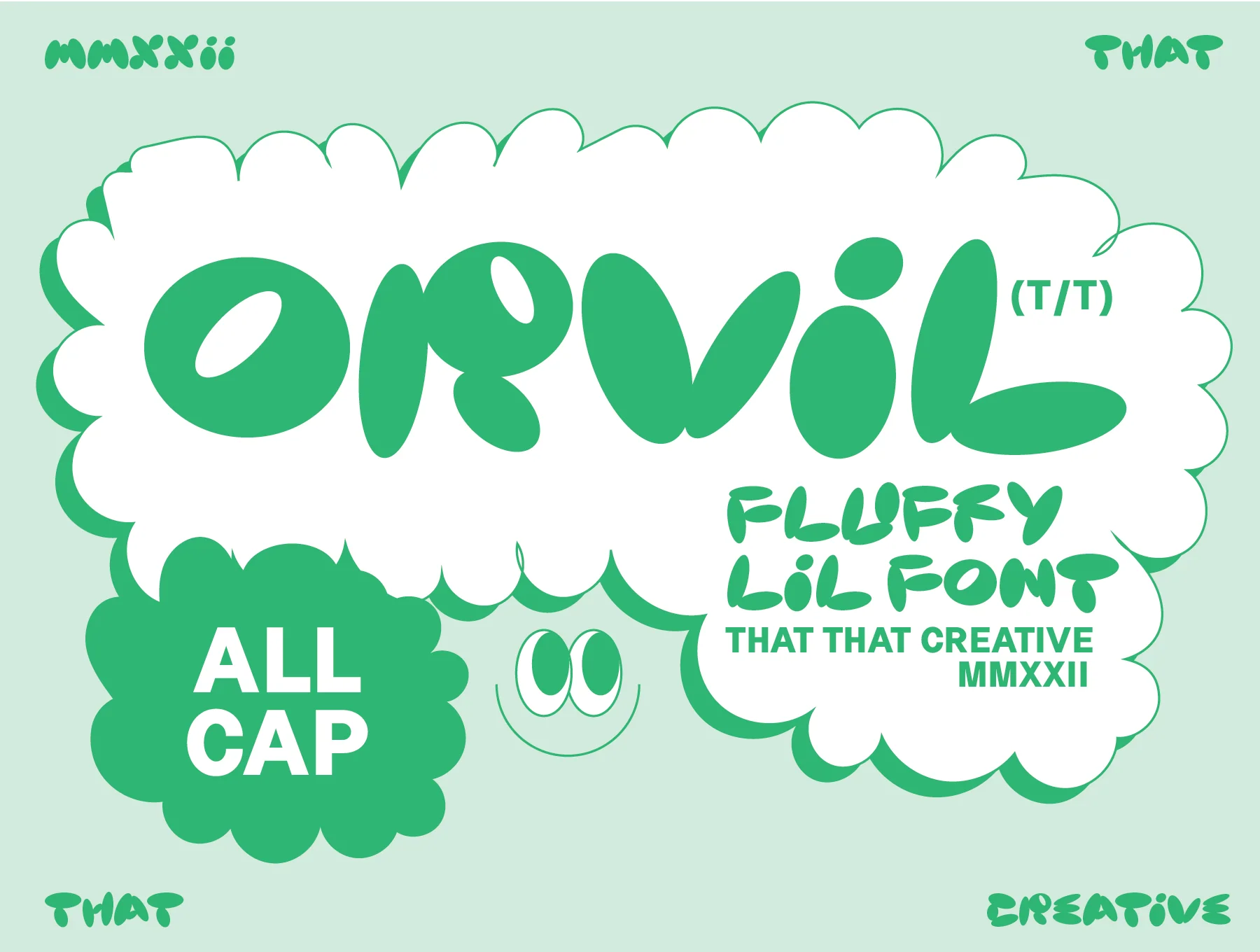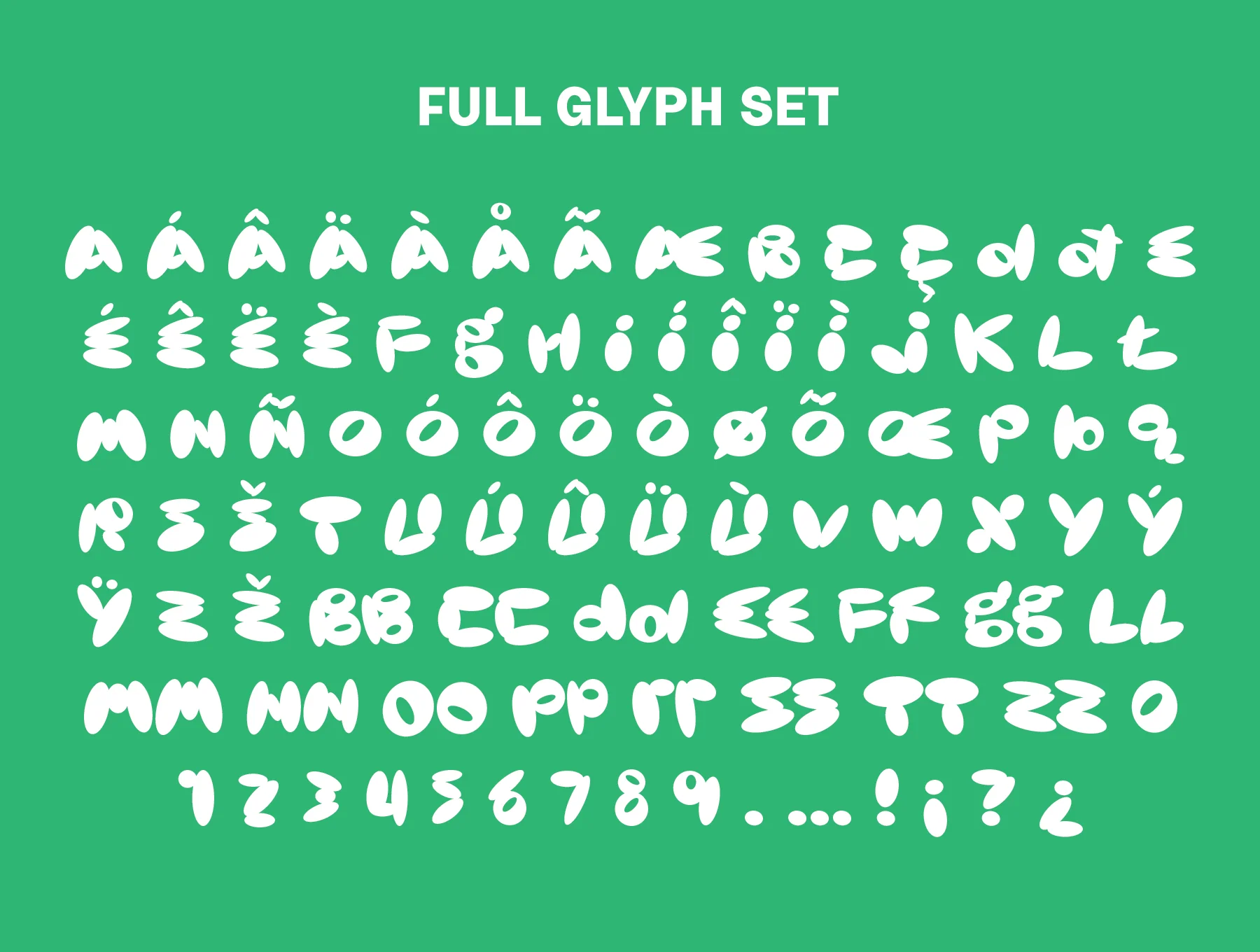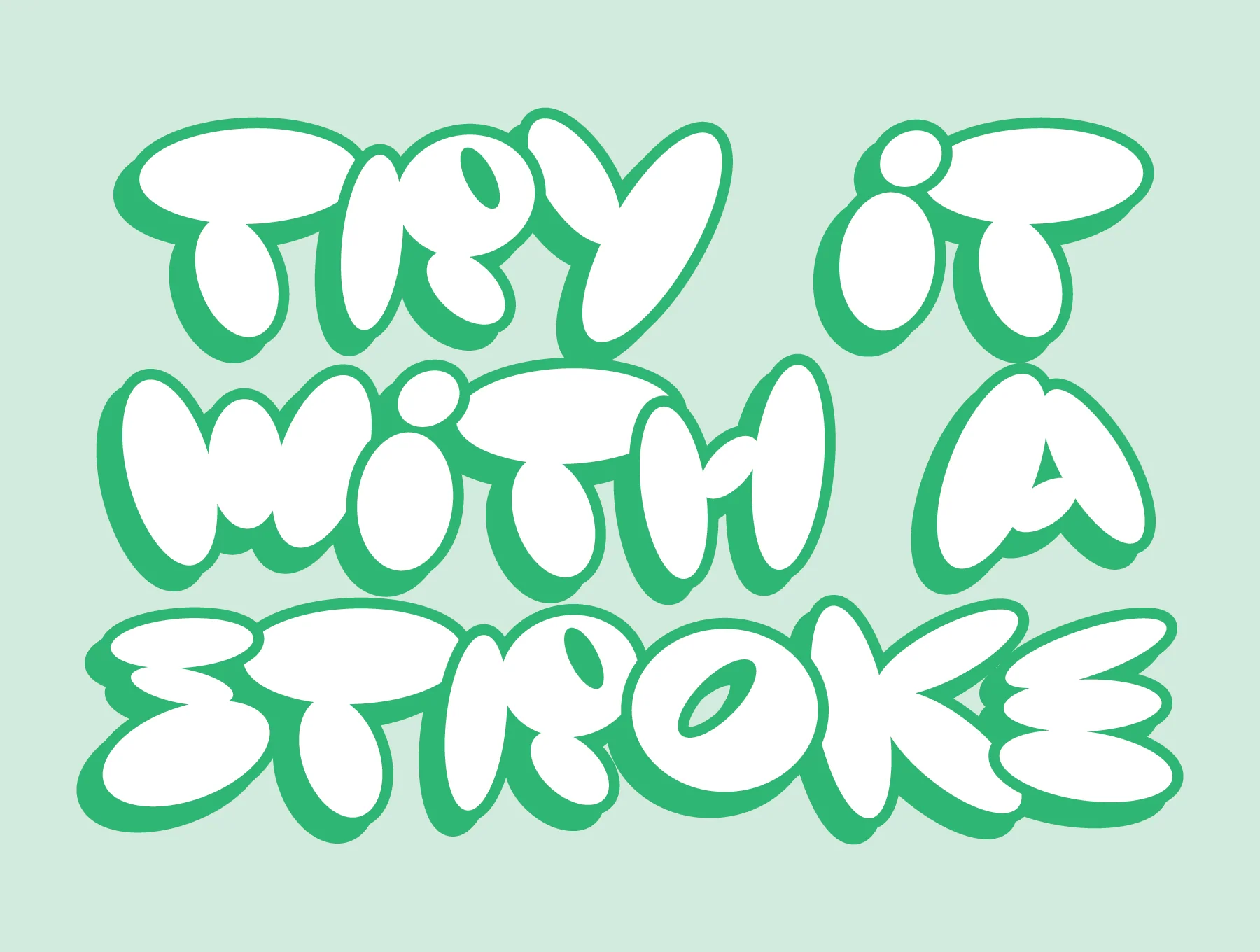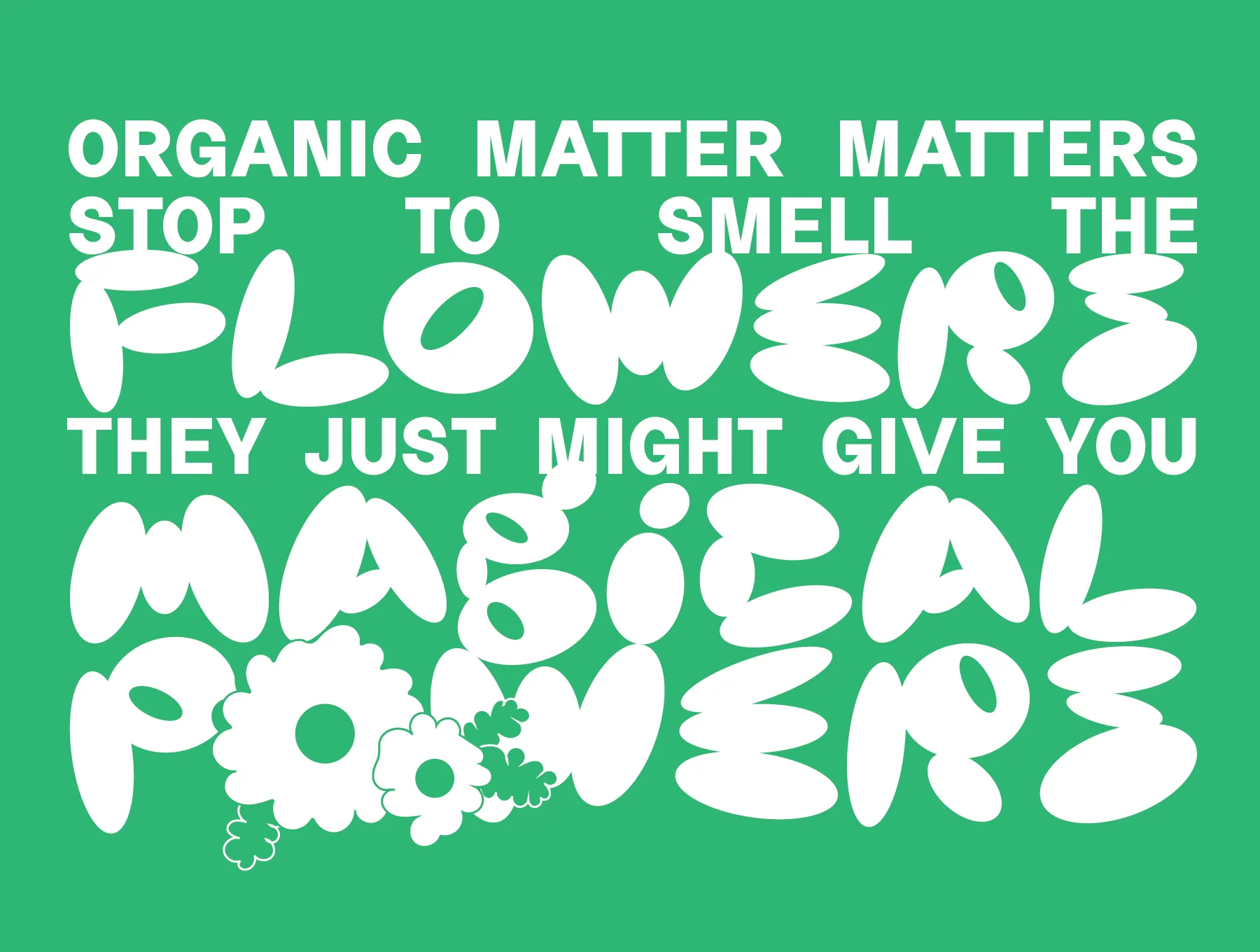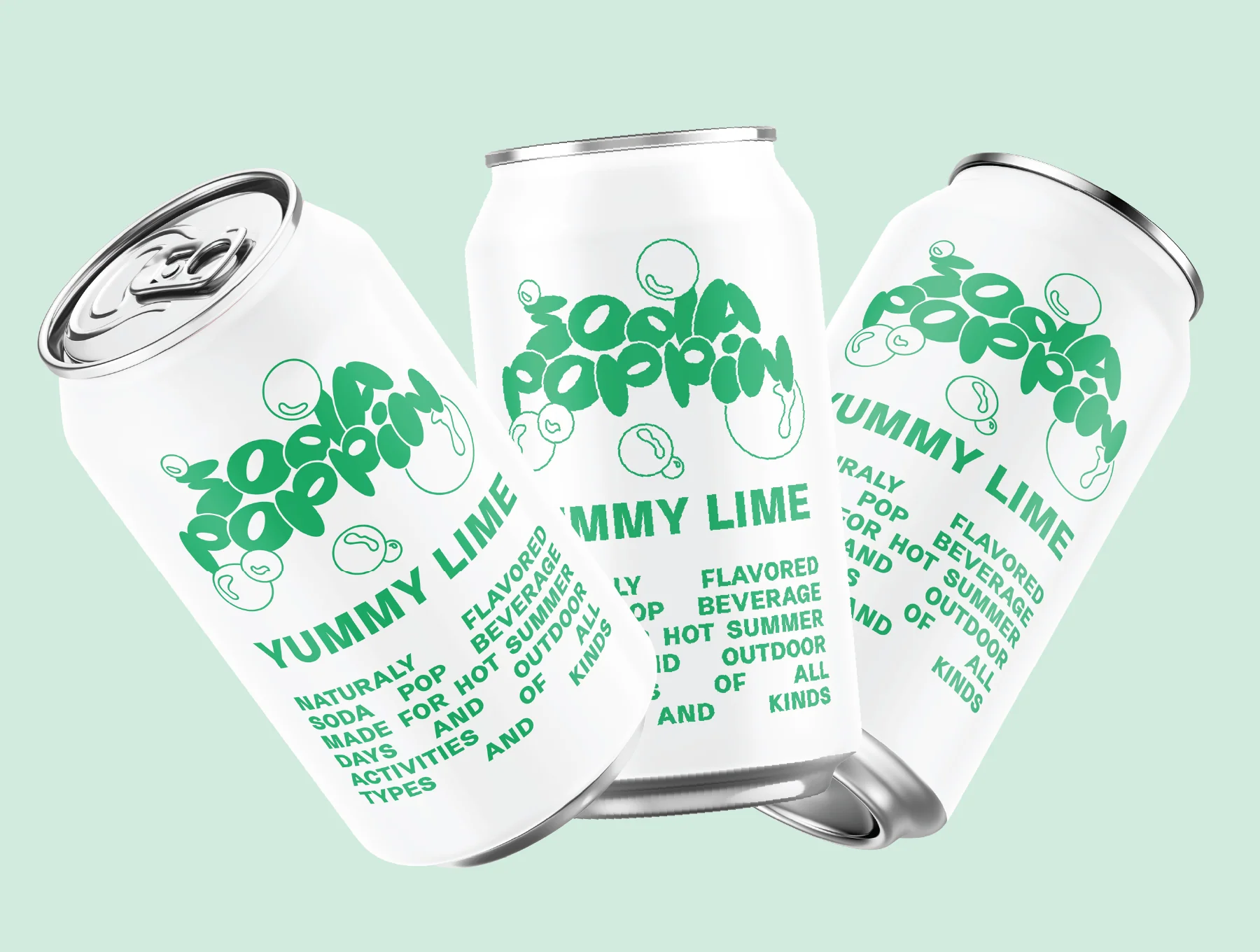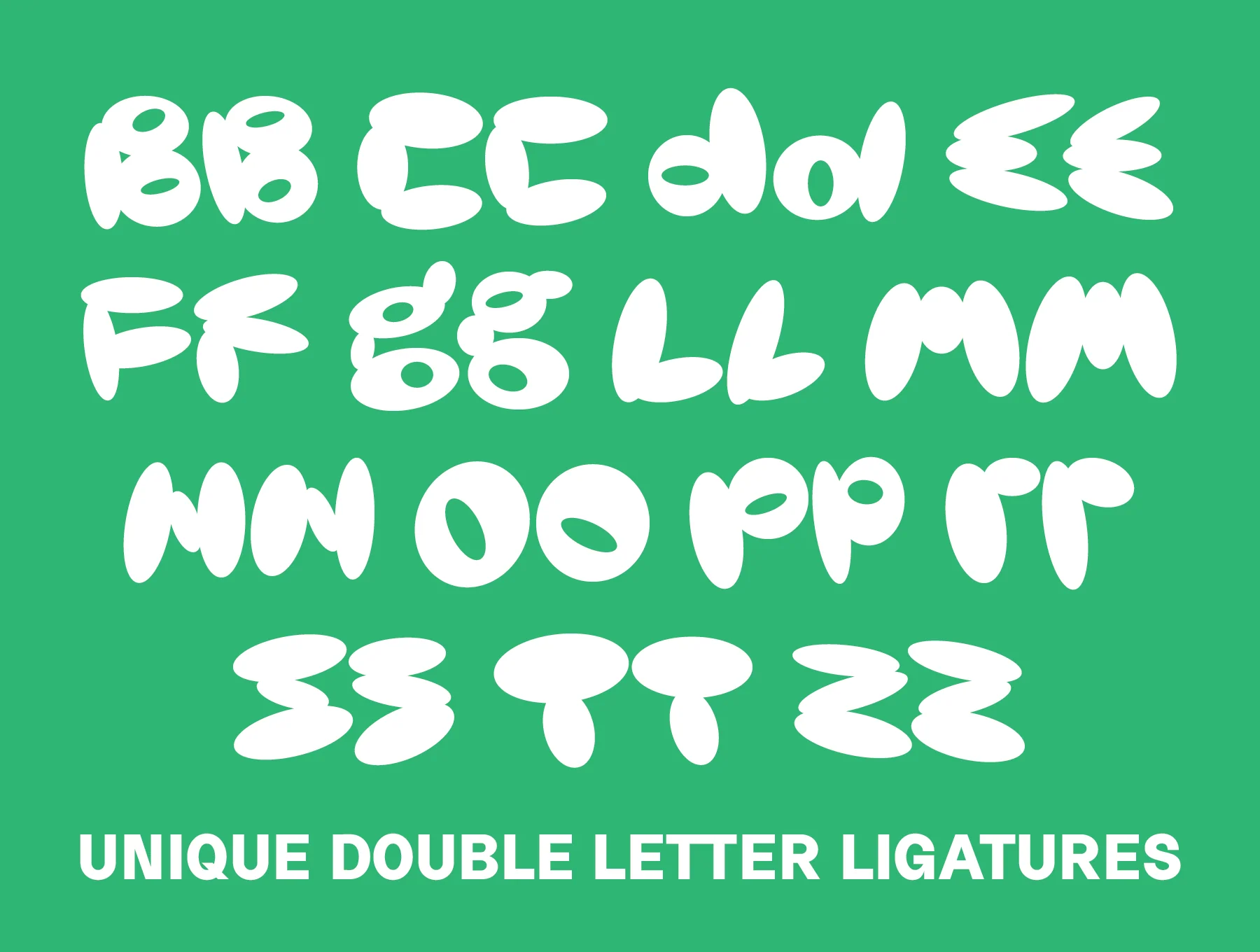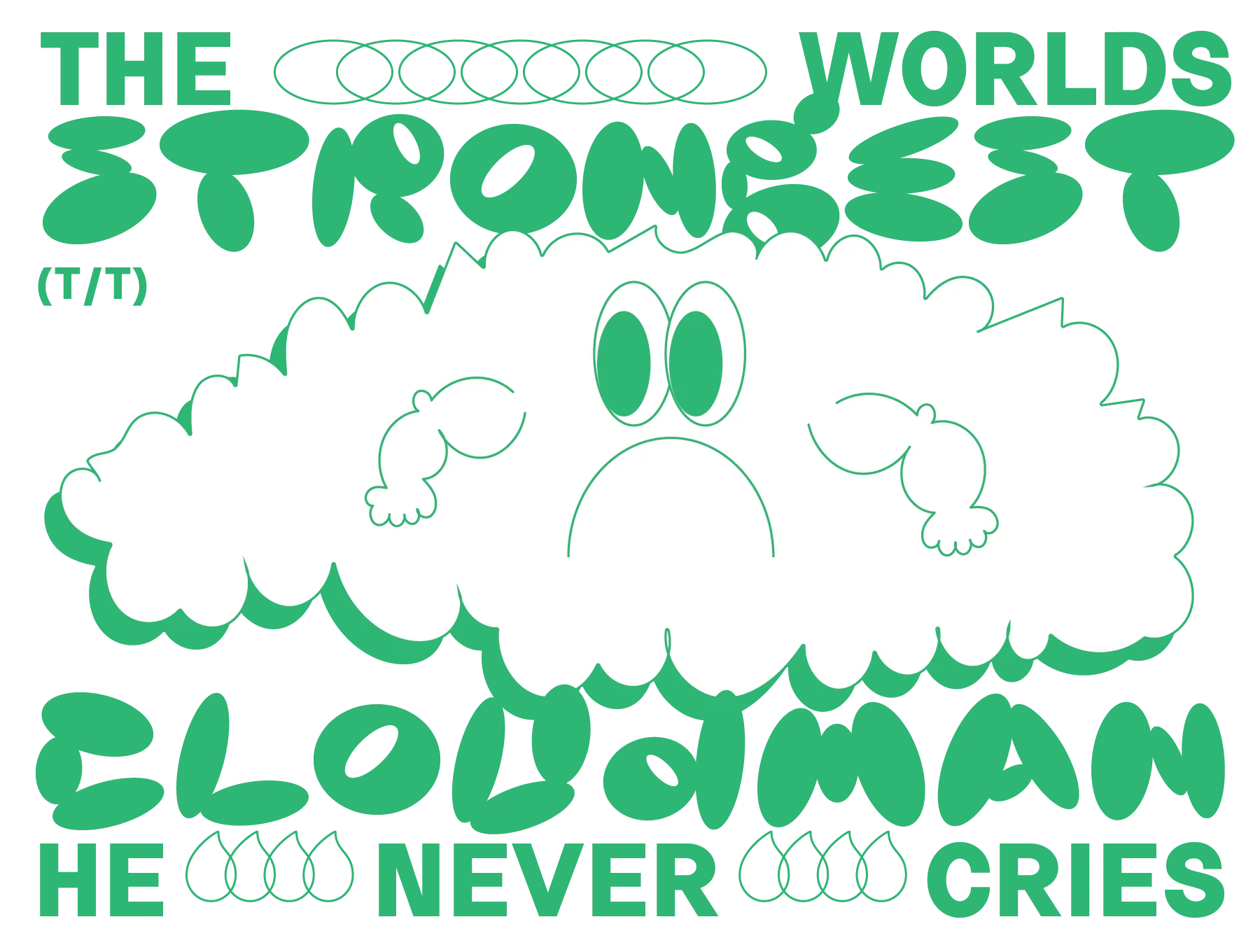
Orvil Bubble Font
Orvil is a modern, playful, bubbly typeface
Supports multiple languages
Typeface for display use
Orvil Bubble is a bold, modern display typeface with a fun, eccentric feel, ready to energize your next creative project. Ideal for magazines, posters, logos, branding, Instagram, and any design needing extra flair. Thumbnail support font: Neuething Sans Family.